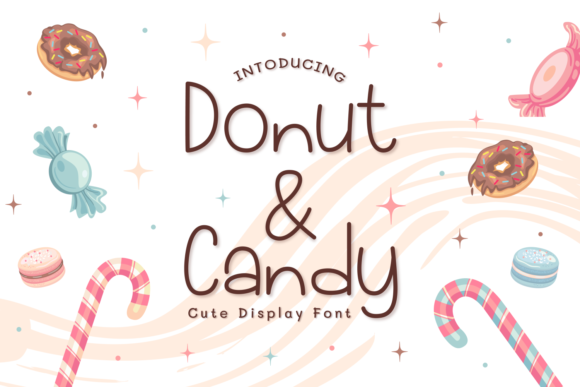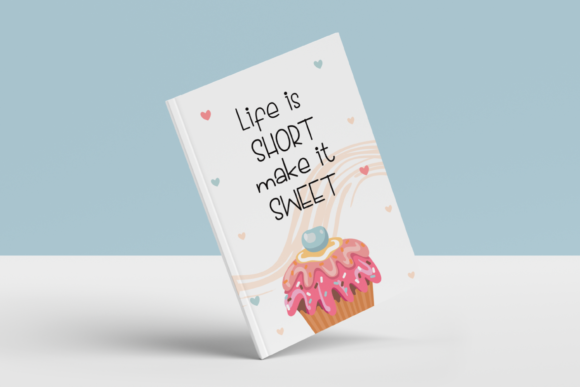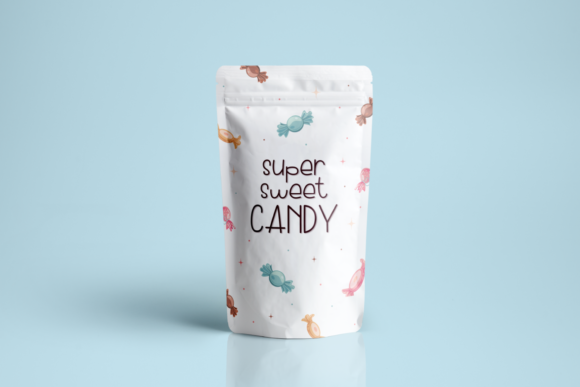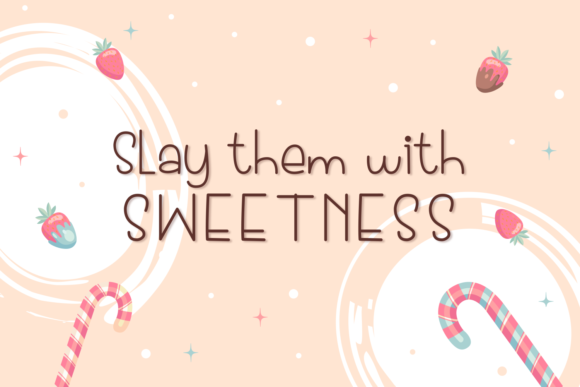
About Donut & Candy Font
Donut & Candy is a thin lettered and simple lettered handwritten font that can be used for all chalkboard quotes or teaching material! Its authentic look will add a personal and realistic feel to your designs.